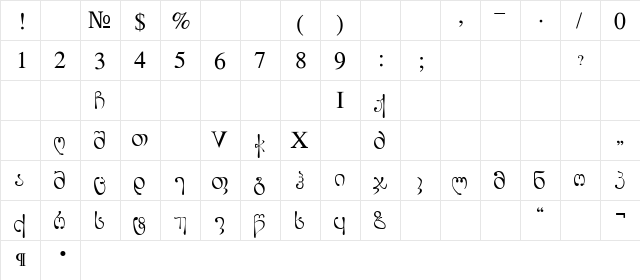
GEO-Lortkipanidze Normal
Design Context for GEO-Lortkipanidze Typeface
GEO-Lortkipanidze takes a measured approach to typography — its balanced proportions and neutral character make it a reliable workhorse for both digital and print work.